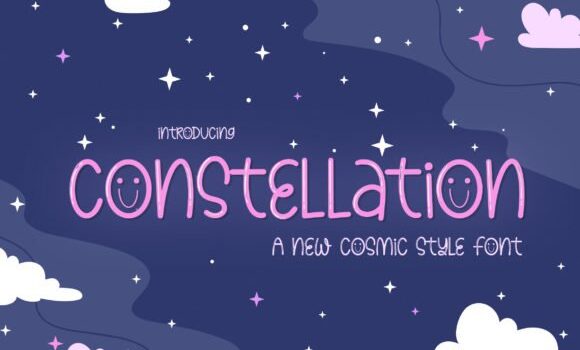
Constellation Font – Free Download Introduction to Constellation Font Constellation is a cute and quirky display font. 📸 Preview Gallery 5 images 📌 Product Name Constellation Font 👤 Author Salt and Pepper Fonts 📂 Category Explore ⬇️ Download Constellation Font